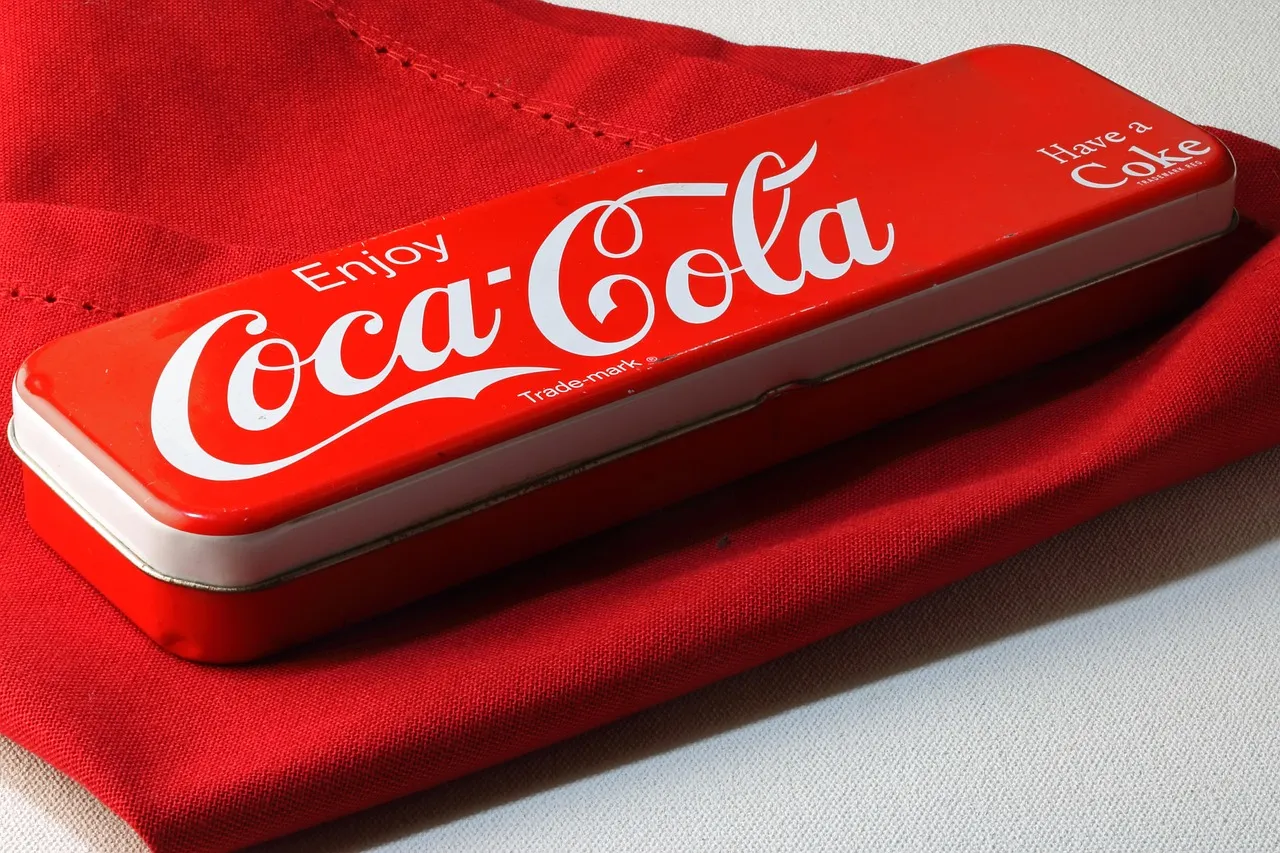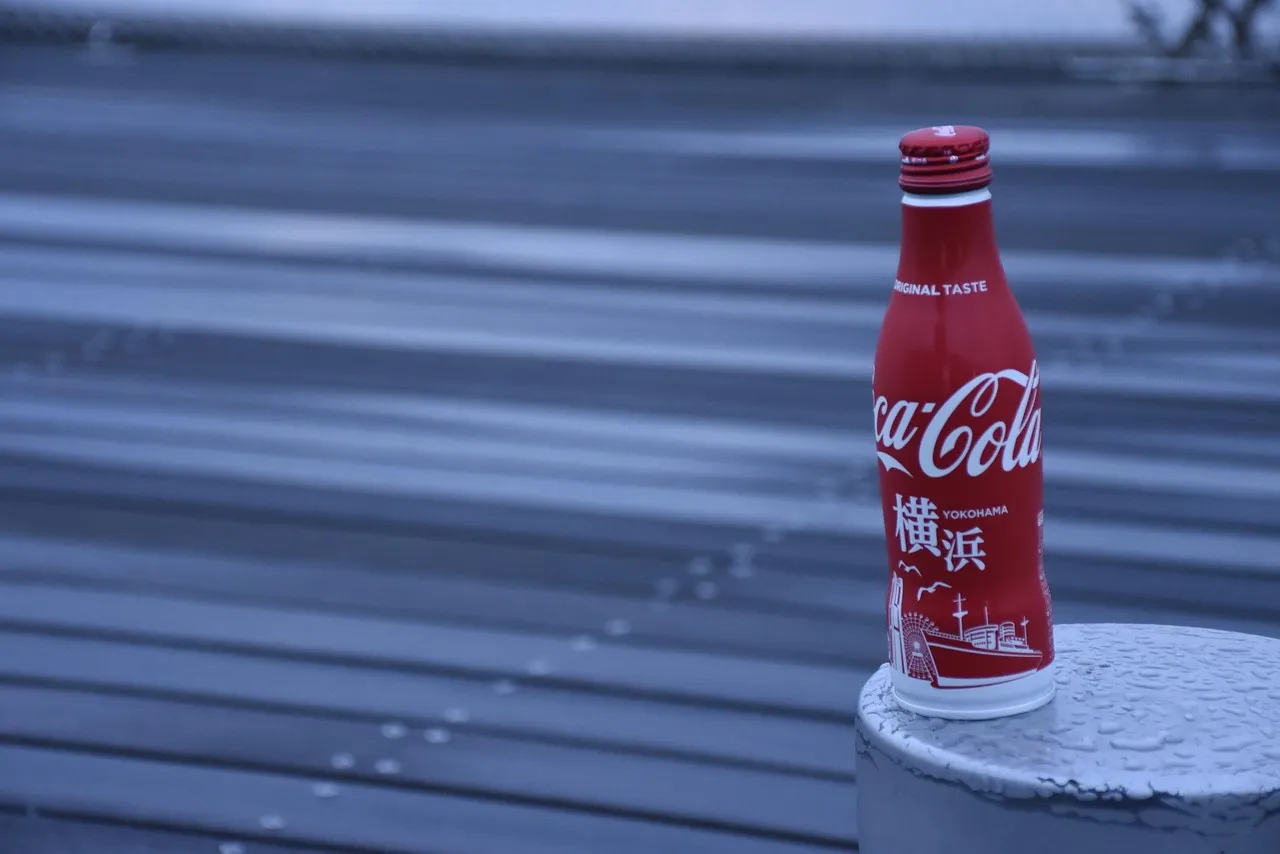
Coca Cola Logo
The Coca Cola logo is world-famous, as well as all of us acknowledge it when we encounter it. Yet this logo has actually gone through various changes considering that the initial variation was presented. The history of the Coca-Cola logo design began in 1886 in New York Harbor with John Stith Pemberton. The Coke logo remains in a round or rectangular shape below the hobble-skirt container. The rectangle-shaped style is quite straightforward and also includes a swirl and a cursive font. The Coca-cola logo design makes use of two colors just: white and red. Both colors appear vivid on an or else basic design that catches the minds of young people. The fonts remain in white against a robust red history. The Coca Cola font is elegant as well as boasts a cursive appearance. Both initial Cs appear one-of-a-kind to each other. Beneath the font is a white swirl that highlights the logo’s simpleness and gives it a distinctive appearance. Coca cola font download now by clicking the button below.
Font Used In The Logo
We visited different websites and after a lot of research, we found the Coca Cola Font. The Font used in The Coca Cola logo is called Spencerian script.
Let’s learn more about Coca-Cola font.
Spencerian script is a script style that was utilized in the USA from around 1850 to 1925 as well as was considered the American de facto standard creating design for service correspondence before the extensive adoption of the typewriter. The font design utilized in Ford Motor Business’s logo design is written in Spencerian manuscript, as is the Coca-Cola logo design.
There are two similar fonts like the Coca Cola font-
- Coca Cola ii.
- Loki Cola by Utopia.